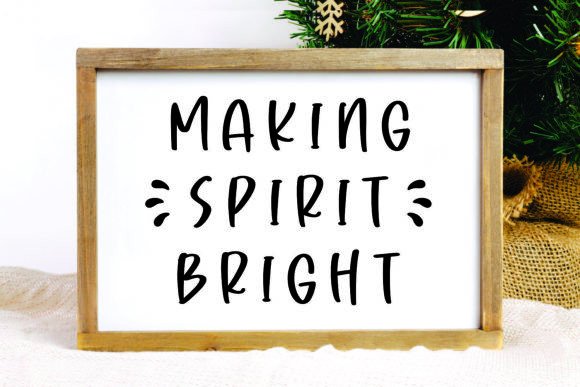
Bright Font
Bright is a sweet and quirky display font. Its chubby characters and lighthearted nature make this typeface a must-have in your fonts library!
Dainty and joyful, this font will be ideal for writing wedding invitations, cards, or any other design that may need a romantic, personalized touch!